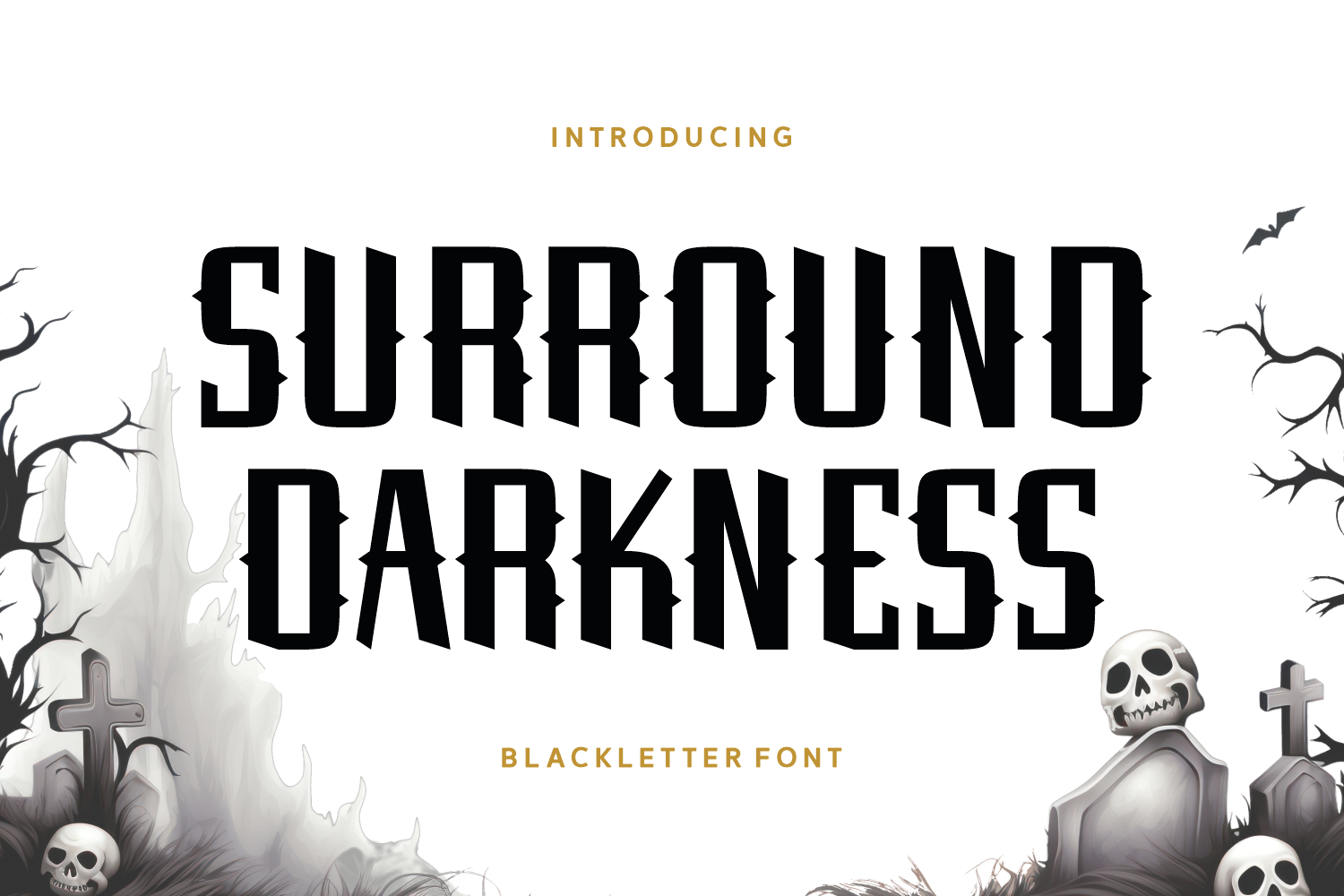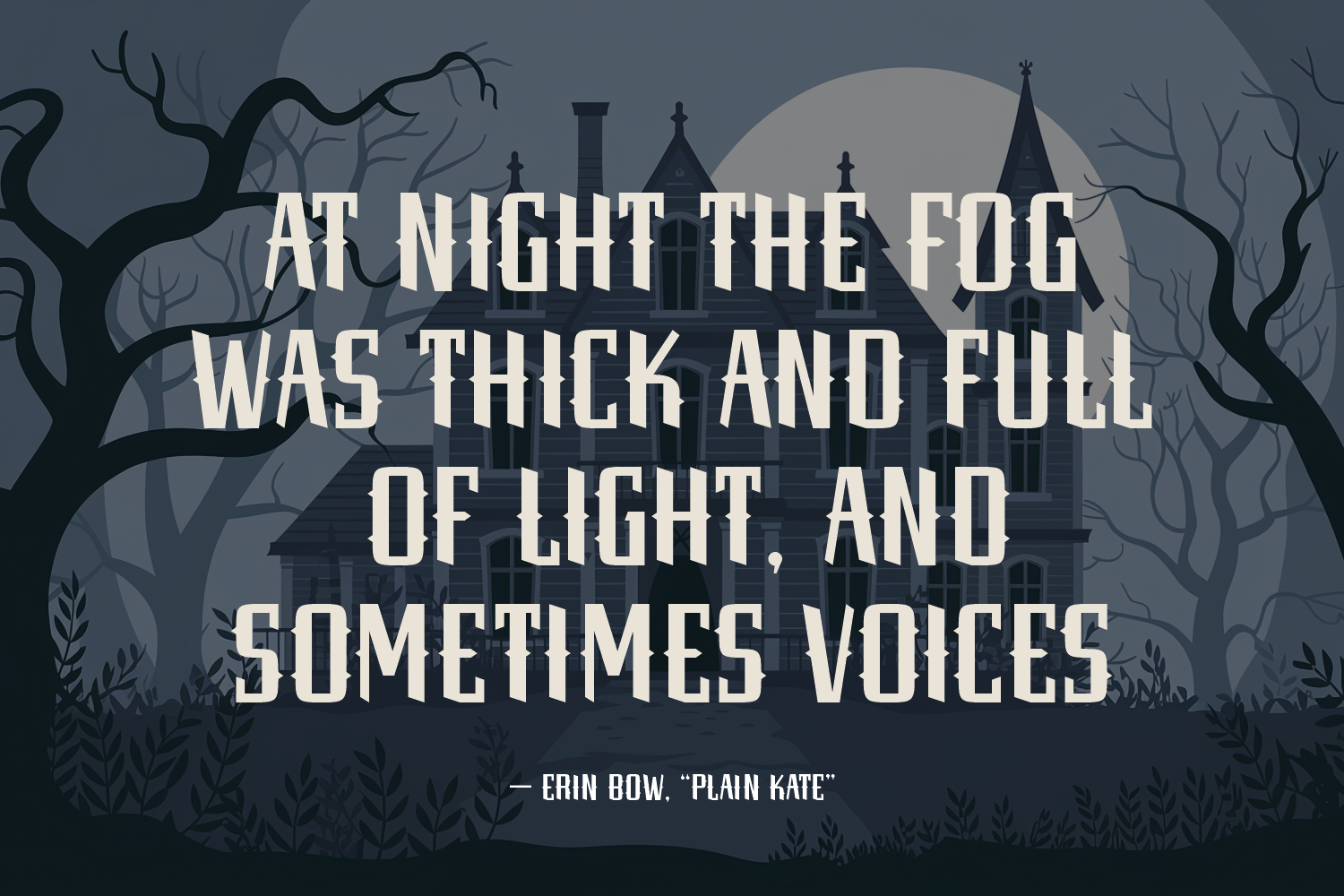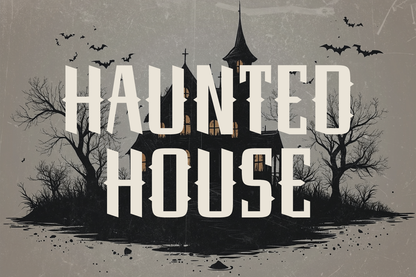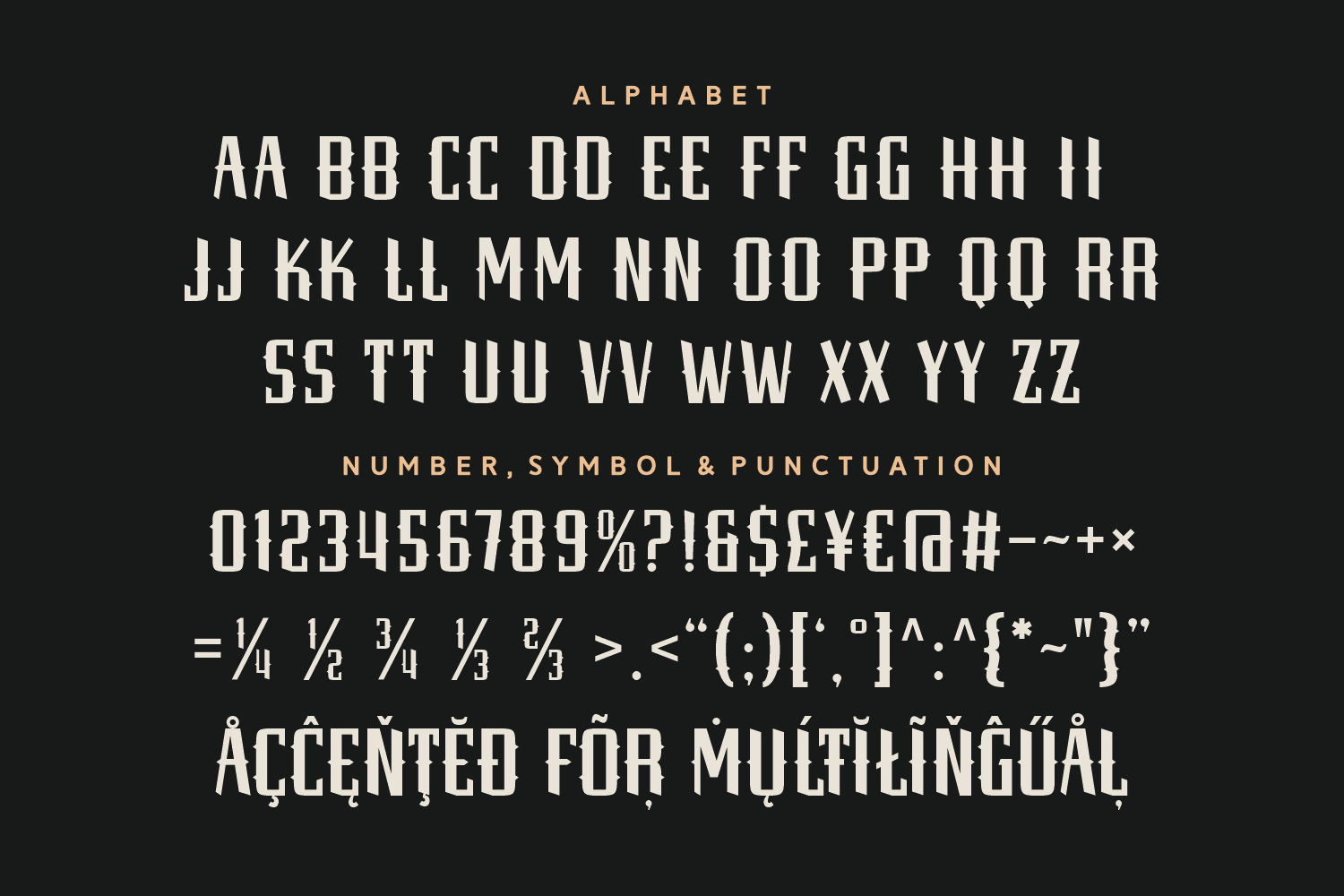
Surround Darkness
Surround Darkness is a sleek, modern blackletter font with clean geometric construction and dark gothic edges. With a futuristic flair and edgy silhouette, it’s ideal for horror projects, gaming, cyberpunk posters, or any modern design that needs bold, mysterious character.